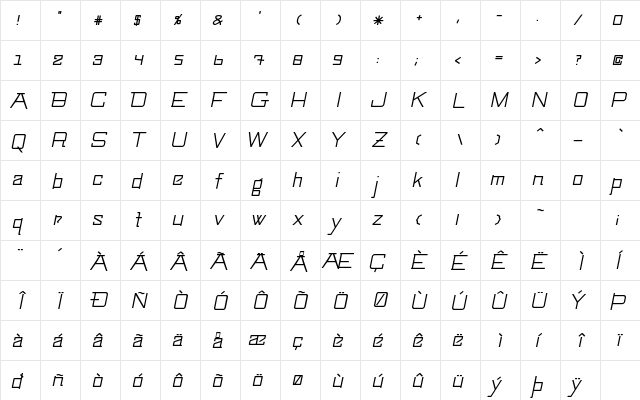
SwingarmYori-LightItalic Regular
| Foundry | Xerographer Fonts |
| Designer | Max Infeld Xerographer Fonts |
Design Context for SwingarmYori-LightItalic Typeface
SwingarmYori-LightItalic draws on military and industrial lettering traditions, with forms that communicate strength and precision. The slanted form adds forward momentum and visual energy. Its slender proportions lend an understated elegance to any composition.
A strong choice for security brands, outdoor gear, and high-stakes visual communication.
Font Pairing: Use alongside a condensed or geometric sans for supporting copy — keep the pairing bold, functional, and free of ornament.
Pro Tip: Try SwingarmYori-LightItalic in all-caps for the most authentic military signage feel. It pairs well with stark, minimal layouts and muted colour palettes.